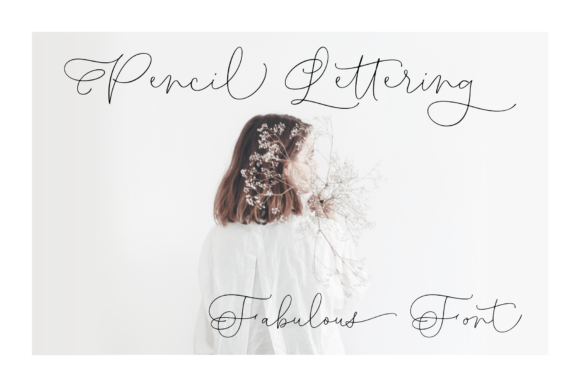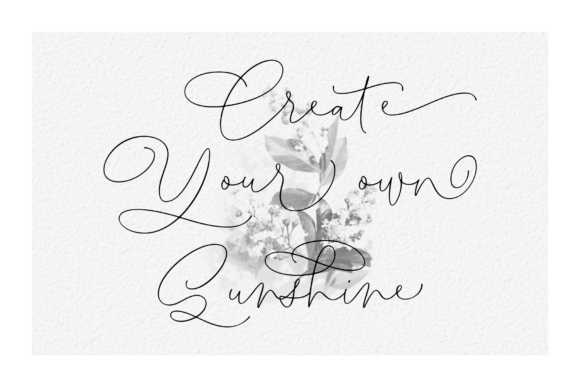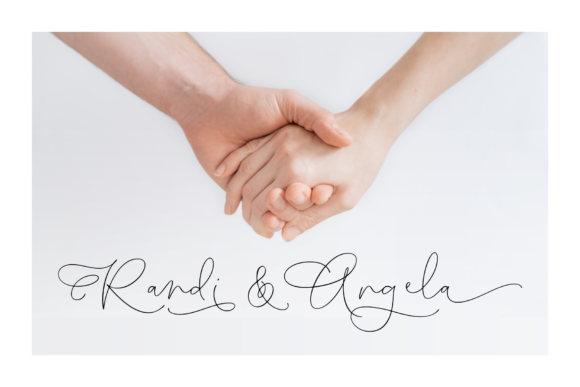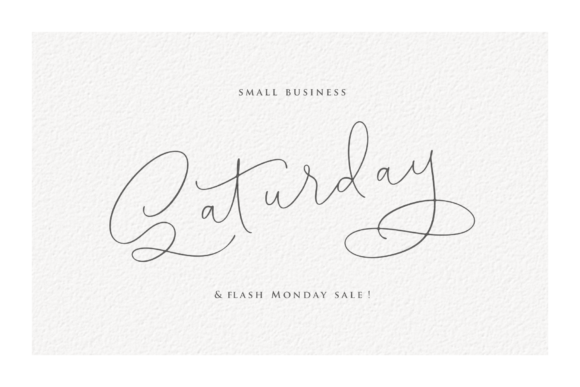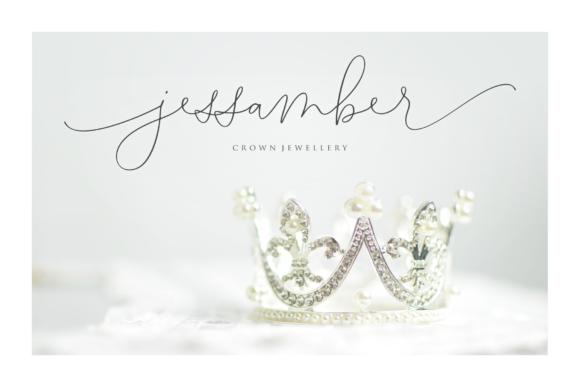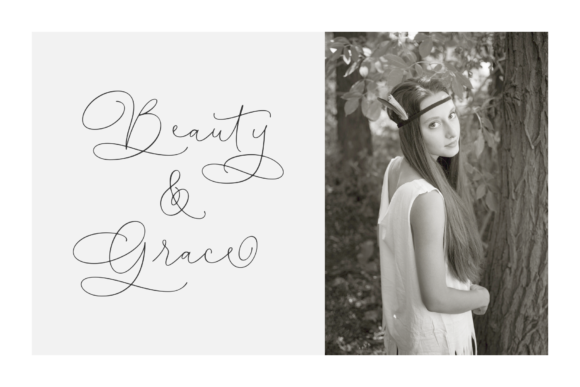
Introducing Dear Gray Font: Elevate Your Designs with Modern Calligraphy
In the world of design, typography plays a crucial role in conveying messages, evoking emotions, and creating visual identities. For designers and crafters seeking a font that combines elegance, modernity, and versatility, Dear Gray Font is an exceptional choice. This stunning modern calligraphy font is designed to bring a touch of sophistication and personality to various design projects, from quotes and logos to website headers, fashion designs, and wedding cards.
The Characteristics of Dear Gray Font
Dear Gray Font boasts a natural writing style that sets it apart from more traditional calligraphy fonts. Its modern approach to calligraphy offers a fresh and contemporary look, making it perfect for designers who want to add a unique flair to their work. The font’s fluid strokes and subtle variations in line width give it an organic, hand-written feel that resonates with audiences.
One of the standout features of Dear Gray Font is its incredible versatility. This font can be used across a wide range of design projects, including:
- Quotes: Add a touch of elegance to inspirational quotes, making them perfect for social media posts, posters, or printed materials.
- Logos: Create memorable and stylish logos for businesses, especially those in the fashion, beauty, and lifestyle sectors.
- Website Headers: Enhance the visual appeal of website headers, making them more engaging and professional.
- Fashion Designs: Incorporate Dear Gray Font into fashion designs, such as clothing labels, lookbooks, or advertising materials, to convey a sense of style and sophistication.
- Wedding Cards: Add a romantic and personal touch to wedding invitations, cards, and other stationery.
Why Choose Dear Gray Font?
For designers and crafters, selecting the right font can be a daunting task. Here are a few reasons why Dear Gray Font stands out:
- Unique Style: Offers a distinctive, modern calligraphy style that can help designs stand out.
- Ease of Use: Designed to be user-friendly, making it easy to incorporate into various design projects.
- High Versatility: Suitable for a wide range of applications, from digital to print.
- Emotional Connection: Its natural, hand-written style can create an emotional connection with the audience, making designs more relatable and engaging.
Tips for Using Dear Gray Font
To make the most of Dear Gray Font, consider the following tips:
- Pair with Complementary Fonts: Use Dear Gray Font in combination with simpler fonts to create visual contrast and hierarchy in your designs.
- Experiment with Colors: While the font itself is neutral, playing with different colors can help match the tone and theme of your project.
- Adjust Line Spacing: For a more natural look, adjust the line spacing to mimic hand-written text.
Dear Gray Font is a versatile and stylish modern calligraphy font that can elevate a wide range of design projects. Its natural writing style, combined with its versatility and unique aesthetic, makes it an excellent choice for designers and crafters looking to add a touch of elegance and sophistication to their work. Whether you’re creating quotes, logos, website headers, fashion designs, or wedding cards, Dear Gray Font is sure to inspire and enhance your designs.